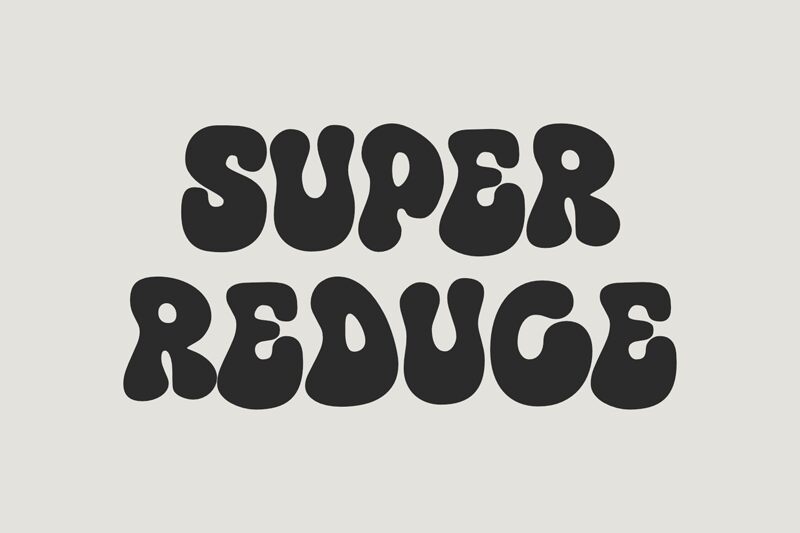
Super Reduce
Super Reduce, designed by fsuarez913, stands out as a display font that carries a vibe of cool confidence with its groovy style and extra-bold weight. The font’s curvaceous lines and smooth, flowing shapes give it a retro charm that is both appealing and visually impactful. The voluptuous contours paired with the solid presence of its extra-bold weight make Super Reduce an excellent choice for projects aiming to grab attention and evoke nostalgia.
The Super Reduce font's boldness is not just in its weight but in character; this makes it ideal for headlines, posters, branding, or any creative work where a statement is to be made. Its groovy style resonates with designs reminiscent of the '60s and '70s yet has the versatility to slide seamlessly into modern aesthetics that celebrate bold typography.
From the playful loops to the assertive presence on the page or screen, Super Reduce promises designers a typeface that won't shy away from making an impression. Whether you're crafting something whimsical or anchoring a dynamic layout, this font's unique characteristics ensure your message stands out with style and substance.